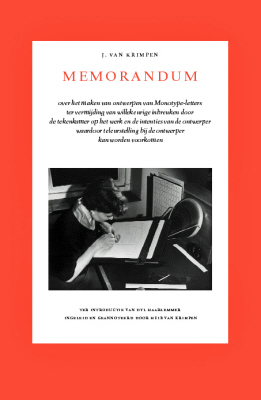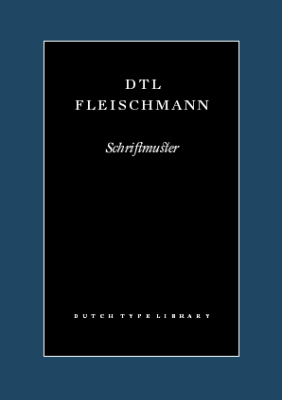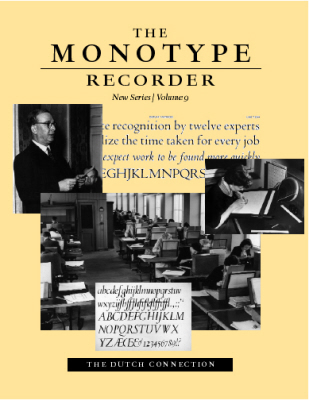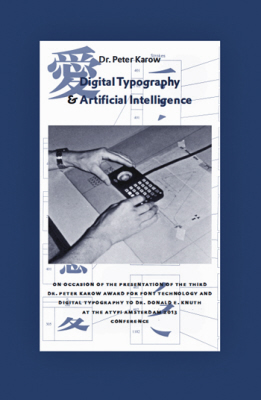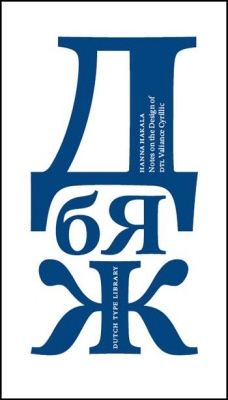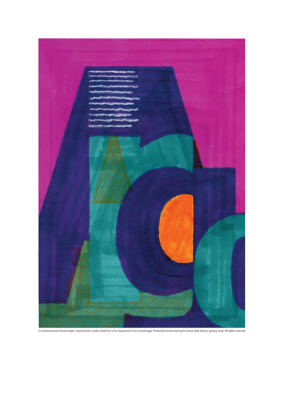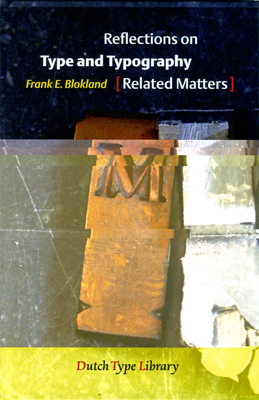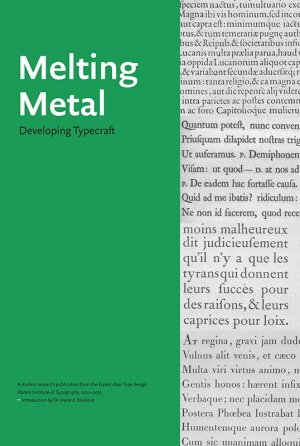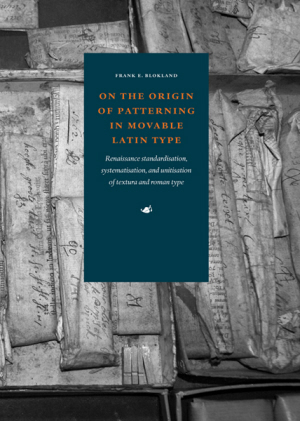
Printed matter
Published by the Dutch Type Library
Gerard Unger Poster
A1-sized poster based on a relatively small (A5) marker sketch, which Gerard Unger made for DTL Argo around 1992. January 2019 this poster was published by the Dutch Type Library to commemorate Gerard. It is delivered in a cardboard tube.
Design Gerard Unger / DTL Studio
On the Origin of Patterning in Movable Latin Type
October 2016 Dutch type designer, software developer, researcher, and Senior Lecturer Frank E. Blokland (1959) successfully defended his PhD dissertation at Leiden University. This revolutionary and somewhat controversial study is available now as digitally printed book for graphic-design students, type designers, typographers, scholars, and everyone who just loves type.
Blokland’s research (see also:
https://www.lettermodel.org) was conducted to test the hypothesis that Gutenberg and his peers developed a standardised and unitised system for the production of textura type and that this system was extrapolated for roman type. Humanistic handwriting was simply moulded into a fixed system already developed for the production of gothic type. Renaissance typographic patterns were partly determined by requirements for the type production. Hence, today’s typographic conventions are not only the result of optical preferences predating movable type but at least as much the result of standardisation that eased the Renaissance type production.
Design: Frank E. Blokland
Rosart Anvers; Making a Revival [...]
The Museum Plantin-Moretus in Antwerp has a truly fabulous collection of punches, matrices, foundry type, and historic prints. Not coincidently, this is the location where the Expert class Type design (EcTd) course of the Plantin Institute of Typography led by Frank E. Blokland takes place. A very important part of the EcTd course is the exchange of knowledge and skills between the students. The yearly revival project is targeted at this; the students cooperate on a redrawing and an adaptation of historic foundry type, using material from the Museum Plantin-Moretus’ rich collection. The students encounter that the original models are not as clear as they look at first sight; there is definitely room for different interpretations and the students have to reach a consensus.
The EcTd laureates who made this booklet together, come from Poland, Ireland, Germany, Italy, France, Netherlands, and Belgium. This booklet is not just a presentation of the outcomes of the Rosart project; it is a concise manual and guide for everyone who wants to investigate historic type-foundry material and wants to produce a revival. The Expert class Type design course is not restricted to the making of revivals, and proof of this is also presented in this booklet.
Design: Walda Verbaenen et al.
Notes on the Design of DTL Valiance Cyrillic
In Notes on the Design of DTL Valiance Cyrillic Hanna Hakala, who studied graphic design at the University of Art and Design in Helsinki and type design at KABK's master course Type & Media, presents a collection of notes made during the design of DTL Valiance. This concise publication provides type designers also with clear guides for designing Cyrillic characters and gives historical background information. It also contains a type specimen of DTL Valiance. With a foreword by Dr. Frank E. Blokland.
Design: Hanna Hakala
Digital Typography & Artificial Intelligence
In Digital Typography & Artificial Intelligence font-software pioneer Dr. Peter Karow, who founded with Rubow and Weber the company URW Software & Type GmbH in the early 1970s, and who is especially renowned for the IKARUS program, describes how digital typography transpired in type design and text layout. It has changed font production and text composition in their entirety. With a foreword by Dr. Frank E. Blokland.
Design: Frank E. Blokland
DTL OTMaster Manual
DTL OTMaster (OTM) enables one to dig deep into the binary font tables –which almost can be compared with open-heart surgery. Therefor one needs a thorough knowledge of the OpenType and TrueType specifications and recommendations before one starts editing. This is a must-read manual by expert Karsten Lücke that provides a wealth of additional information on the OpenType CFF and TTF formats.
This Recorder has as title The Dutch Connection and contains articles by, amongst others, Jan van Krimpen, Huib van Krimpen, David Saunders, and Frank E. Blokland. The Dutch Connection consists of 40 pages with numerous b/w illustrations.
Design: Frank E. Blokland